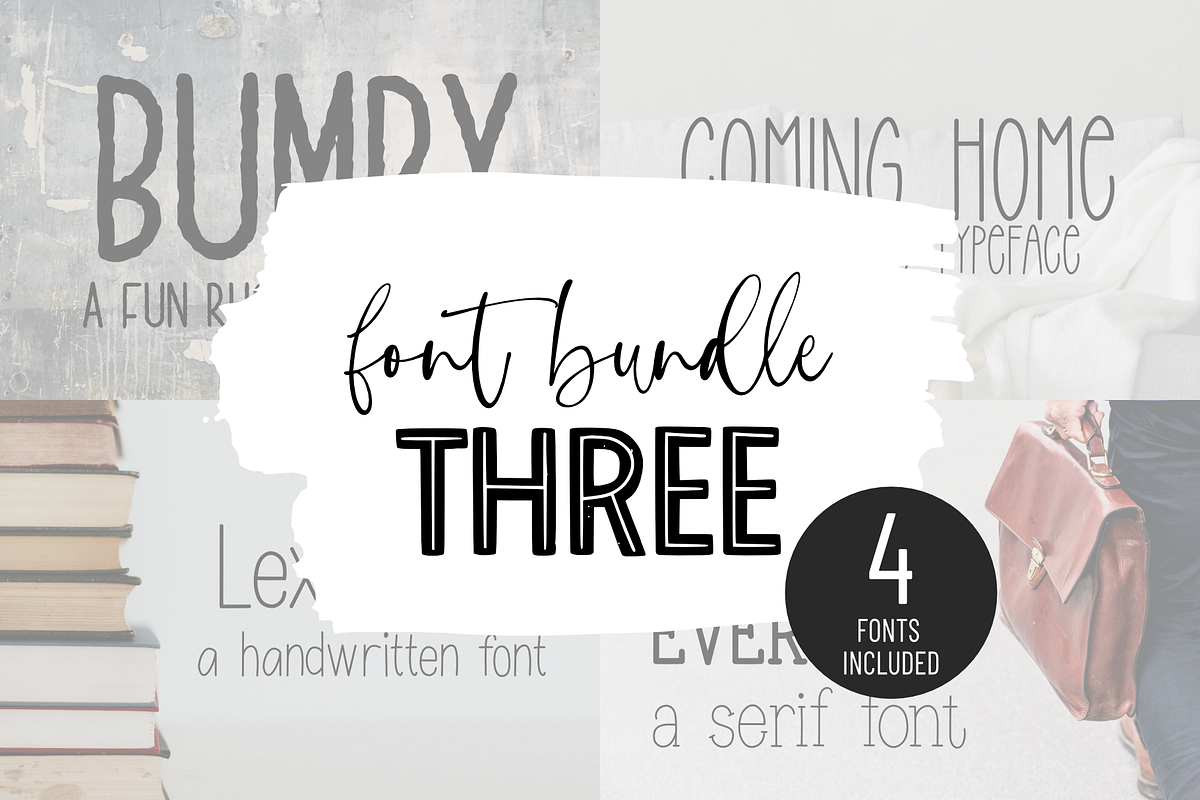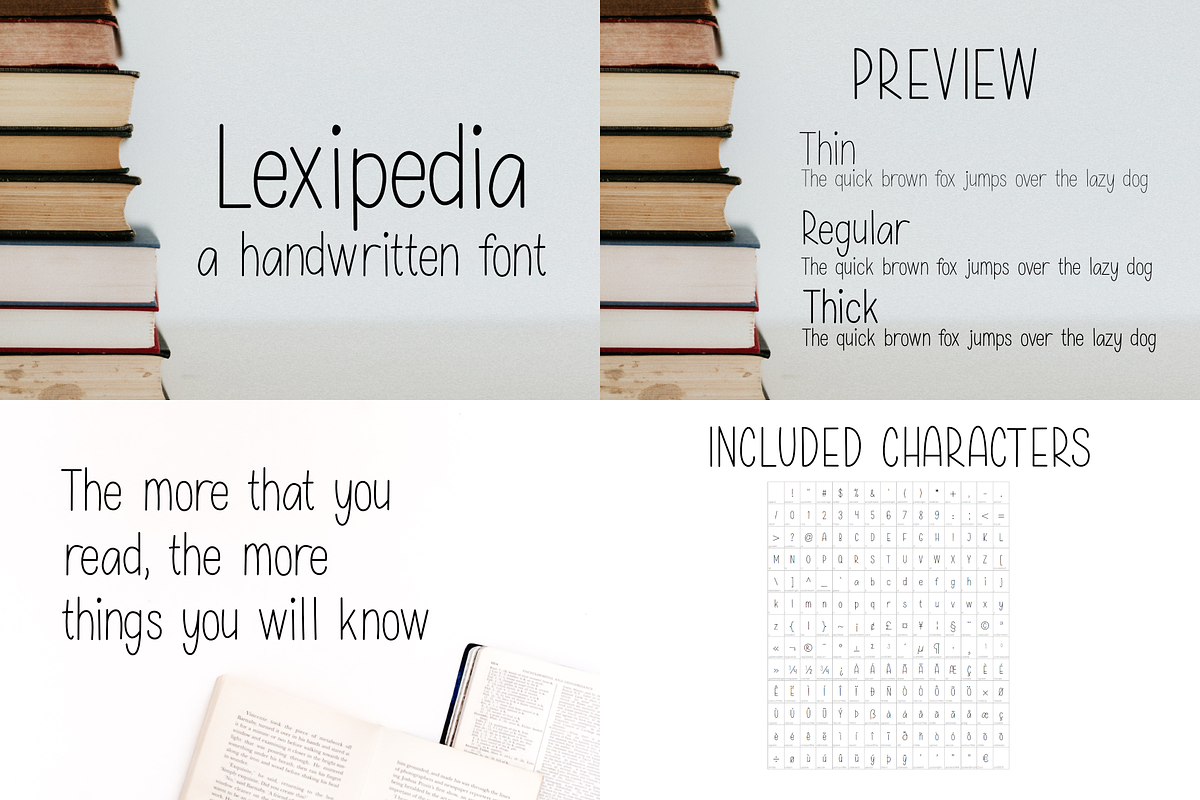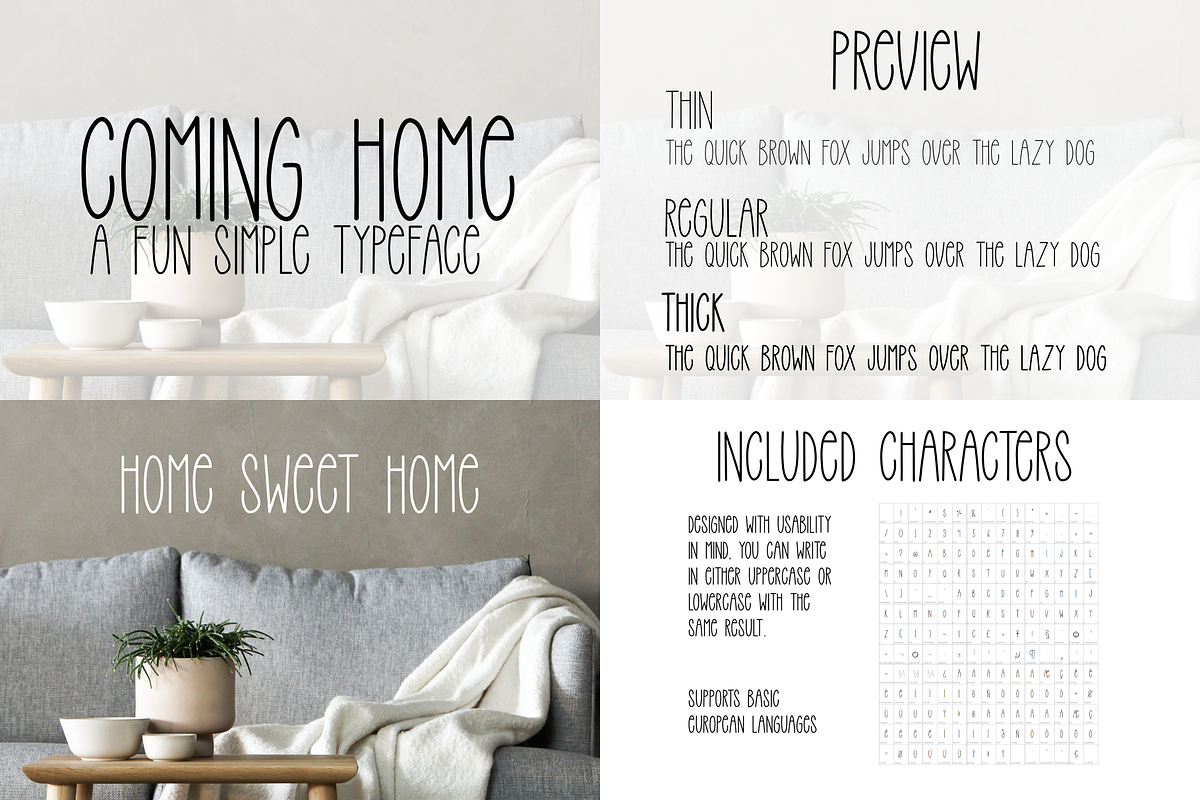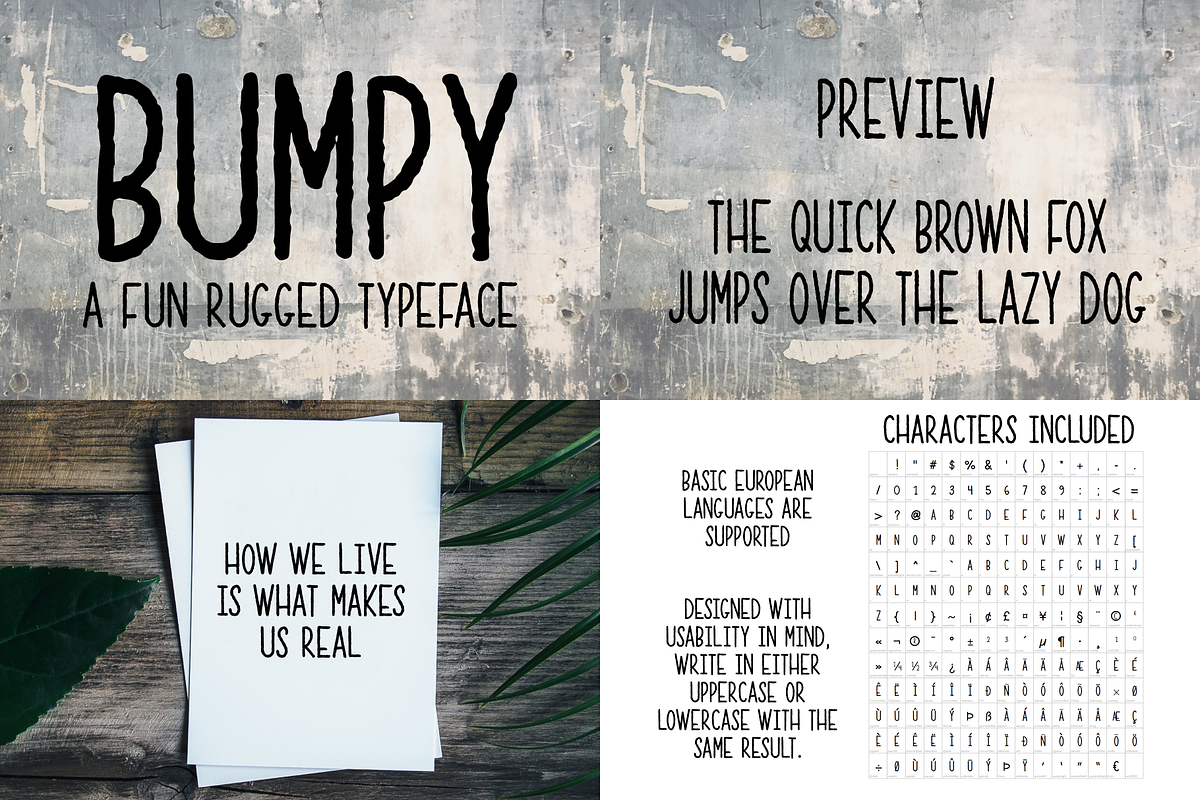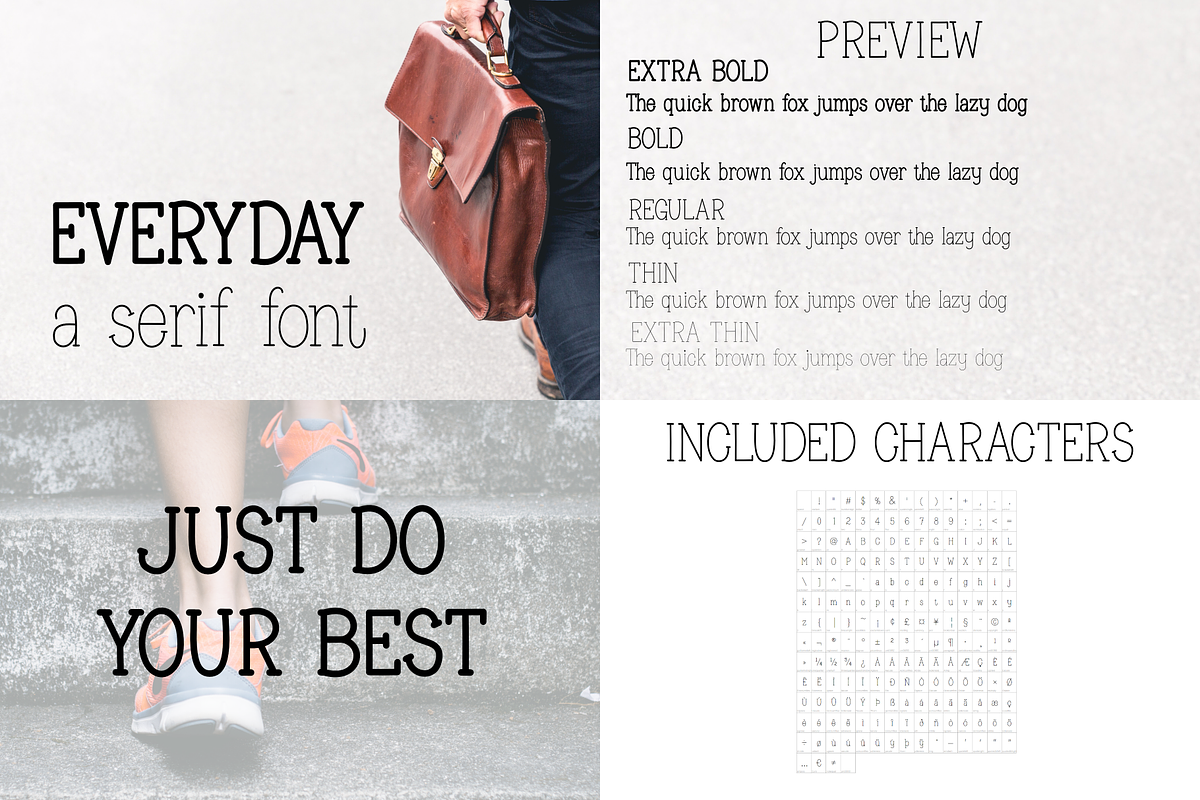
FONT BUNDLE THREE | 4 handmade fonts
Included in bundle:
- Bumpy
- Coming Home
- Everyday
- Lexipedia
BUMPY:
Bumpy is a fun, a bit rugged, and jagged typeface, with an edgy feel.
COMING HOME
Coming home is a fun simple handwritten typeface, in the style of sans-serif. You will get the font Coming Home in three weights; thin, regular and thick.
EVERYDAY
Everyday is a cute handwritten serif font. It comes in five widths; extra bold, bold, regular, thin & extra thin
LEXIPEDIA
Lexipedia is a fun hanwritten typeface, in the style of sans-serif. You will get this font in three weights; thin, regular and thick.